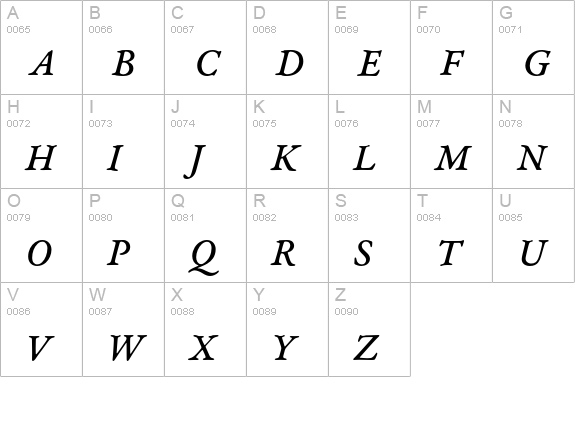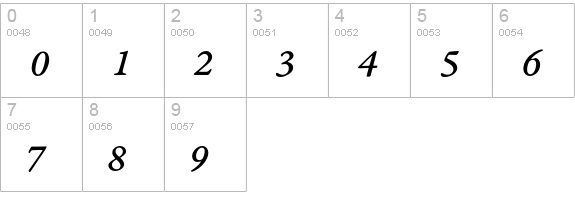
Garamond Premier Pro Medium Italic Caption Font Details
Garamond Premier Pro Medium Italic Caption is a balanced, medium-weight, italic variant in the Garamond typeface family \xE2\x80\x94 well suited to sub-headlines, navigation, and balanced editorial work.
Garamond Premier Pro Medium Italic Caption font exudes elegance and sophistication with its graceful curves and precise letterforms. This font is ideal for adding a touch of refinement to editorial designs, book layouts, and branding projects. The medium weight and italic style of Garamond Premier Pro Medium Italic Caption strike the perfect balance between readability and aesthetic appeal, making it a versatile choice for various design applications. What sets this font apart is its exceptional readability even in smaller sizes, making it perfect for captions, subheadings, and other instances where space is limited. The italicized slant adds a touch of flair and emphasis to text without sacrificing legibility. And the best part? Garamond Premier Pro Medium Italic Caption font is available for free download at FontsMarket.com, allowing designers and creatives to access this premium typeface at no cost. Embrace the timeless beauty and versatility of Garamond Premier Pro Medium Italic Caption in your next design project and elevate your typography game effortlessly.